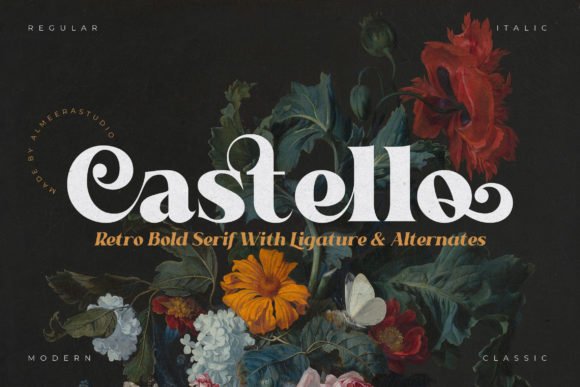
Unlock the Luxe Look with Castello Font
You’ve finally landed the biggest design project of your career, and the stakes are high. You’re envisioning a sleek, high-end brand identity that exudes sophistication and elegance. As you start brainstorming ideas, your mind starts racing with the perfect typography to convey your vision.
Enter Castello Font – the perfect partner in crime for your luxury design project. This trendy, chic serif font is designed to add a touch of opulence to any design. Whether you’re working on a high-end fashion brand, a luxury hotel, or a premium product, Castello Font is sure to elevate your design to the next level.
As a designer, you know that the right font can make all the difference in capturing the essence of your brand. Castello Font is a valuable asset in your toolkit, offering endless possibilities to create stunning, one-of-a-kind designs that leave a lasting impression.
Castello Font Key Features
- Font Family: Castello Font is a serif font family with a classic and elegant design.
- Size: Castello Font comes in 6 weights: Light, Regular, Medium, Demi, Bold, and Black.
- Resolution: Designed to work well at high resolutions, making it suitable for digital and print use.
- Unique Characteristics: Castello Font features a unique blend of classic and modern elements, with a focus on readability and aesthetics.
- Character Set: Supports a wide range of languages, including Latin, Greek, and Cyrillic scripts.
Castello Font Review
As a designer, I was excited to dive into the Castello Font and see what it had to offer. Here are my thoughts.
- Unique aesthetic: The Castello Font has a distinctive, medieval feel that’s perfect for projects that need a touch of history and elegance.
- Good legibility: Despite its ornate details, the font is surprisingly easy to read, even at smaller sizes.
- Wide range of languages: Castello Font supports a wide range of languages, making it a great choice for multilingual projects.
- May be too ornate for some projects: While the Castello Font is perfect for some projects, it may be too much for others. Its intricate details can make it overwhelming if used extensively.
- Limited versatility: Castello Font is best suited for projects with a historical or medieval theme. It may not be the best choice for modern or minimalist designs.
The Castello Font is a solid choice for designers who need a unique, elegant font for their projects. While it has some limitations, its strengths make it a valuable addition to any design toolkit.
Tips for Getting the Most Out of Castello Font
Use the Castello Font to add a touch of elegance to your designs. Pair it with a bold font for contrast, or use it as a headline font for maximum impact.
Experiment with different font sizes and styles to find the perfect balance for your design.
The Castello Font is perfect for:
- Luxury branding and marketing materials
- High-end fashion and beauty designs
Alternatives to Castello Font for Designers
Great Vibes Font is a beautiful, elegant script font perfect for creating a sophisticated and luxurious look. It’s ideal for use in invitations, wedding stationery, and high-end branding materials. Great Vibes Font has a similar vintage feel to Castello Font, but with a more refined and polished appearance.
Carolyna Pro Font is a modern script font designed for use in various design applications, from logos to packaging. It’s a great alternative to Castello Font for designers who want a more contemporary and edgy look. Carolyna Pro Font has a similar flowing feel to Castello Font, but with a more geometric and modern aesthetic.
Alex Brush Font is a elegant, handwritten font that’s perfect for creating a warm and inviting atmosphere. It’s ideal for use in branding materials, packaging, and editorial design. Alex Brush Font has a similar organic feel to Castello Font, but with a more subtle and refined appearance.
Dancing Script Font is a playful and elegant script font that’s perfect for creating a fun and dynamic look. It’s ideal for use in advertising, social media, and entertainment branding materials. Dancing Script Font has a similar whimsical feel to Castello Font, but with a more energetic and lively appearance.
Q: What is the recommended font size for Castello Font?
The recommended font size for Castello Font varies depending on the application and the desired level of legibility. However, as a general rule of thumb, we recommend using a font size between 12 and 24 points for body text, and 36 points or larger for headings. This will ensure that the font is readable and visually appealing in most contexts.